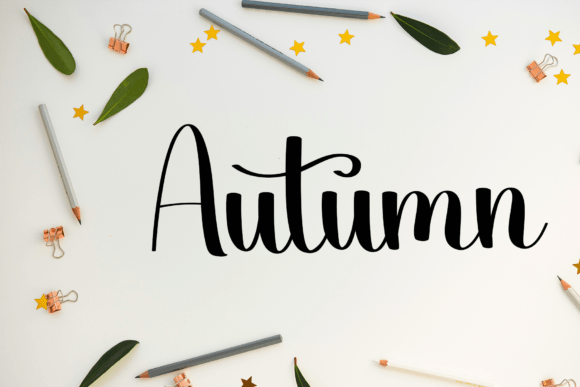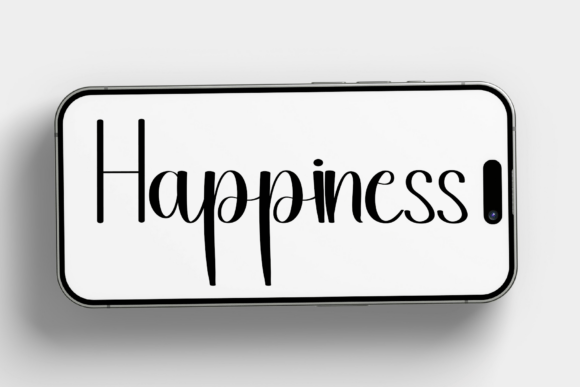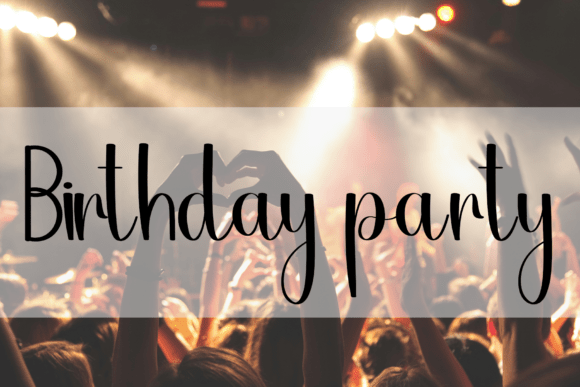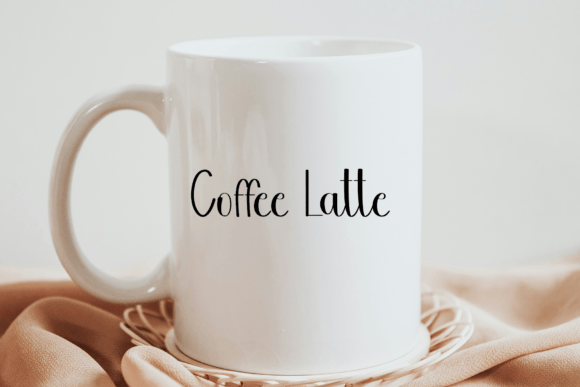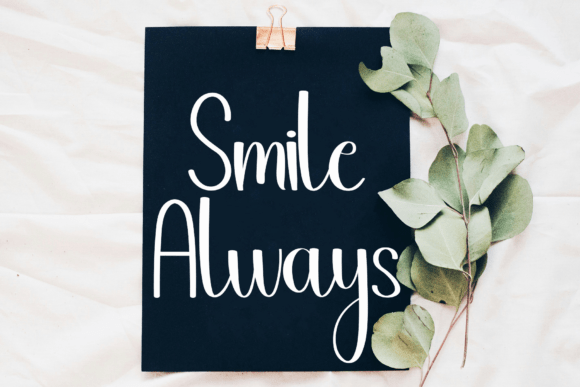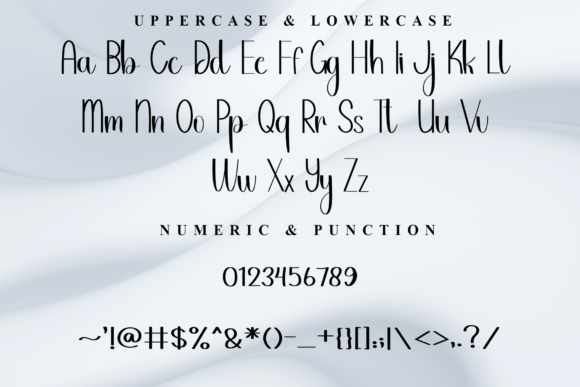
Introducing Everyday Font: The Perfect Blend of Casual and Creative
Are you tired of using the same old fonts for your personal projects, invitations, and social media graphics? Look no further than the Everyday Font, a charming and creative typeface that exudes warmth and friendliness. With its round, playful strokes, this font is sure to add a relaxed and approachable feel to any design.
The Characteristics of Everyday Font
Everyday Font is a casual and creative font that is perfect for designers and crafters who want to add a personal touch to their work. Its hand-drawn aesthetic gives it a unique and fun feel that is sure to stand out from the crowd. The font’s round, playful strokes create a sense of warmth and approachability, making it perfect for personal projects, invitations, and social media graphics.
What Makes Everyday Font So Special?
So, what sets Everyday Font apart from other fonts on the market? For starters, its charming, hand-drawn aesthetic adds a fun and unique touch to any design. The font’s playful strokes and rounded edges create a sense of friendliness and approachability that is hard to find in other fonts. Additionally, Everyday Font is equipped with standard PUA Encoded glyphs, which make it compatible with a wide range of application engines, including Adobe Photoshop, Corel, Adobe Illustrator, Canva, and many others.
The Benefits of Using Everyday Font
There are many benefits to using Everyday Font in your designs. For one, it’s perfect for personal projects, such as crafting, scrapbooking, and journaling. The font’s casual and creative feel makes it ideal for adding a personal touch to your work. Additionally, Everyday Font is great for invitations, social media graphics, and other marketing materials. Its friendly and approachable feel makes it perfect for businesses and individuals who want to connect with their audience on a more personal level.
Tips and Tricks for Getting the Most Out of Everyday Font
Here are a few tips and tricks for getting the most out of Everyday Font:
- Experiment with different font sizes and colors to add depth and interest to your designs.
- Use Everyday Font in combination with other fonts to create a unique and eye-catching design.
- Use Everyday Font to add a personal touch to your designs, such as in crafting, scrapbooking, and journaling.
In conclusion, Everyday Font is a casual and creative font that is perfect for designers and crafters who want to add a personal touch to their work. With its charming, hand-drawn aesthetic and playful strokes, this font is sure to add a relaxed and approachable feel to any design. Its compatibility with a wide range of application engines and standard PUA Encoded glyphs make it easy to use and versatile. So why not give Everyday Font a try and see how it can enhance your designs?
Key Features of Everyday Font
- Casual and creative font
- Hand-drawn aesthetic
- Round, playful strokes
- Relaxed and approachable feel
- Perfect for personal projects, invitations, and social media graphics